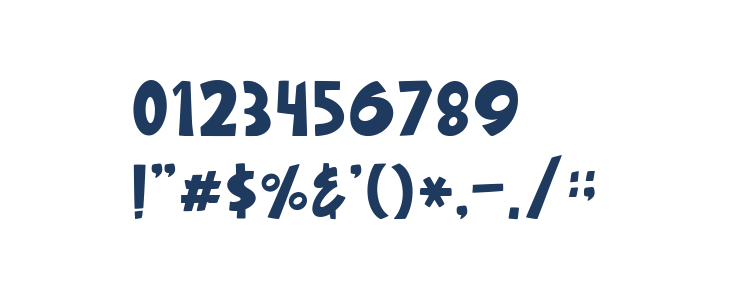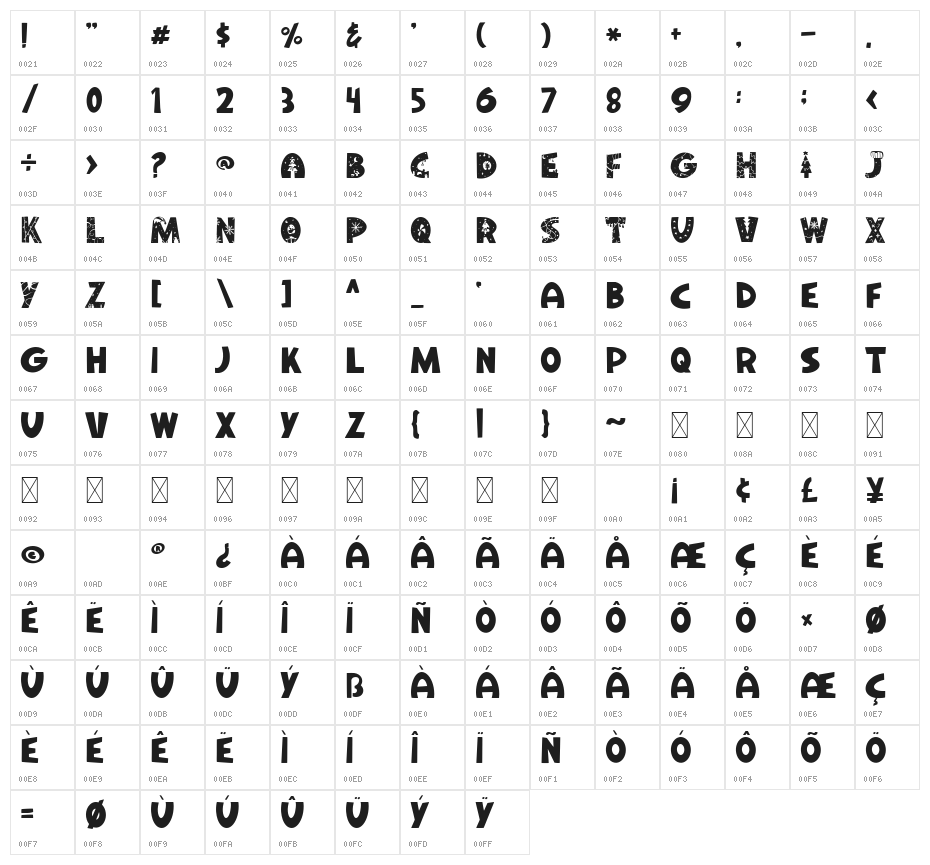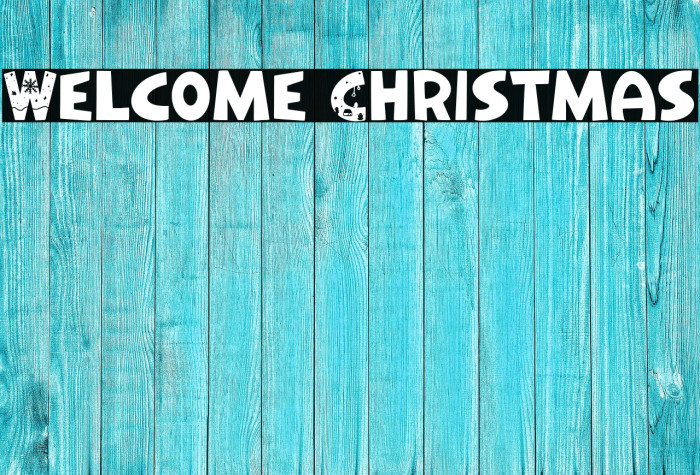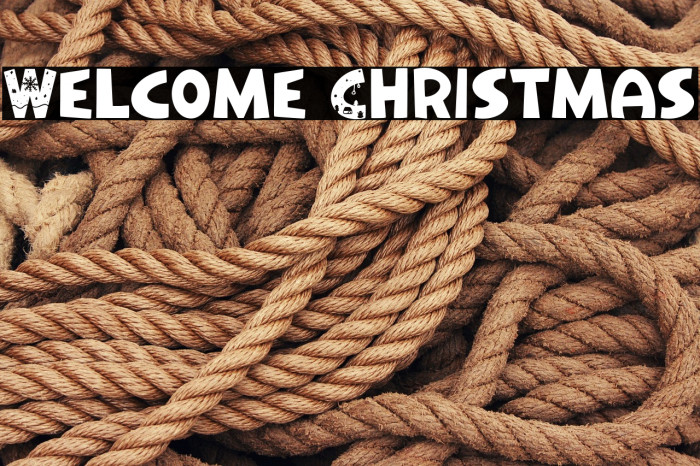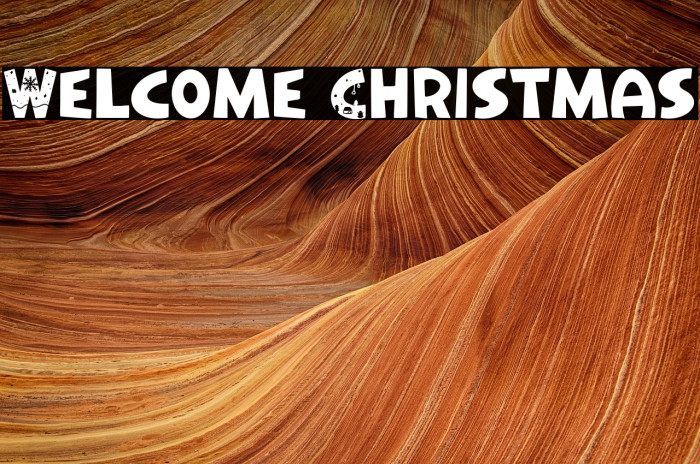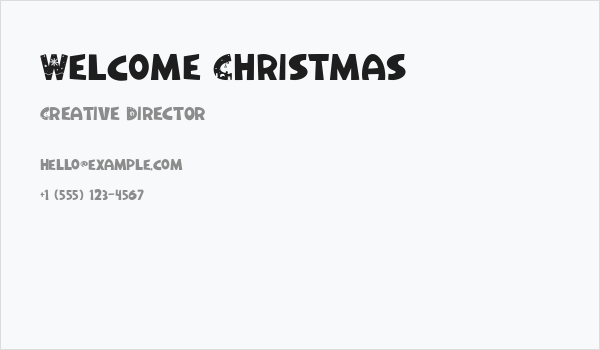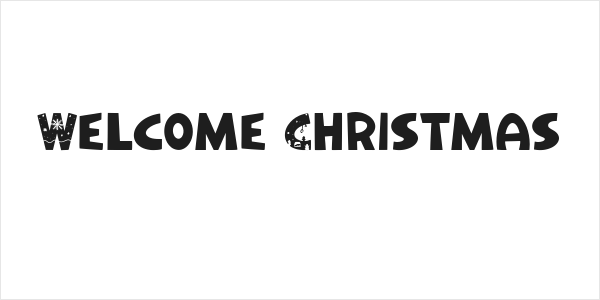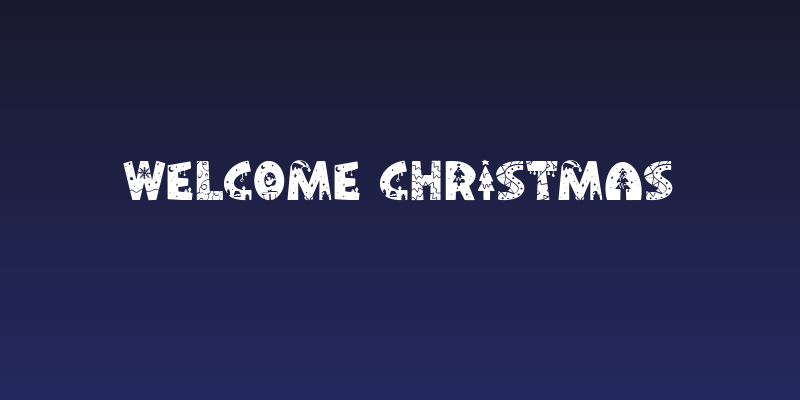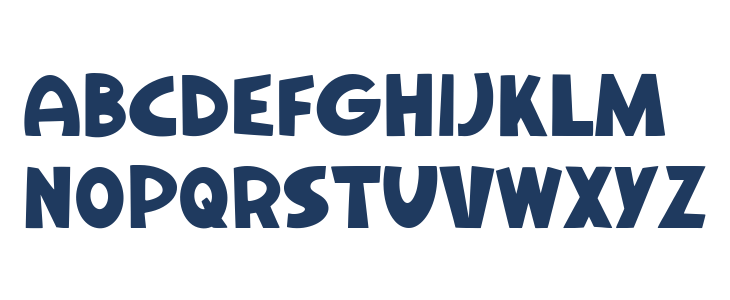
Welcome Christmas Font
Welcome Christmas Description
This playful and festive font captures the essence of holiday cheer with its decorative elements embedded within each character. The uppercase letters are adorned with Christmas-themed patterns such as snowflakes, stars, and festive motifs, adding a whimsical touch. The bold and rounded shapes of the letters give it a friendly and approachable feel, perfect for holiday-themed projects. The lowercase letters maintain a consistent style, ensuring readability while still embracing the festive spirit. The numbers and special characters are designed to match the overall theme, making this font versatile for various uses.
| Overall Style | Festive, Playful |
| Use Case | Headlines, Logos, Holiday-themed designs |
| Proposed Projects | Ideal for holiday cards, festive banners, Christmas event invitations, and seasonal advertisements. |